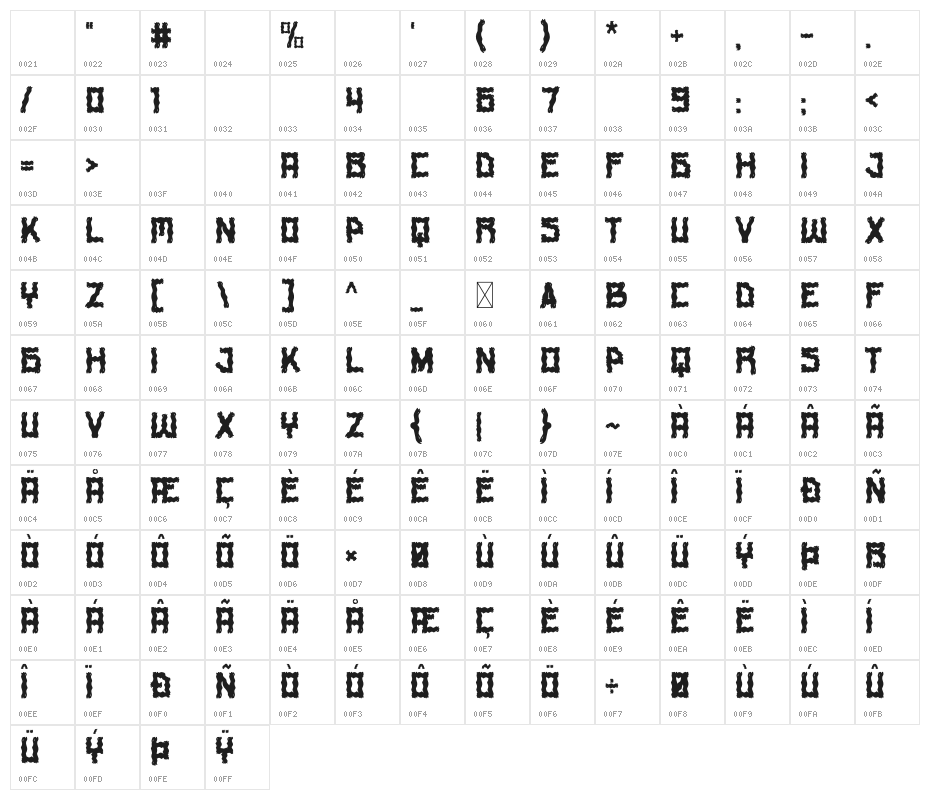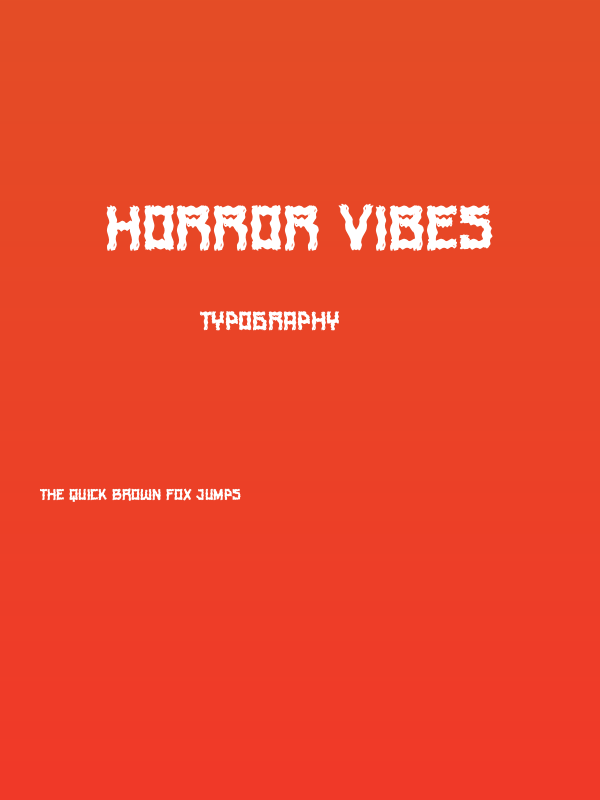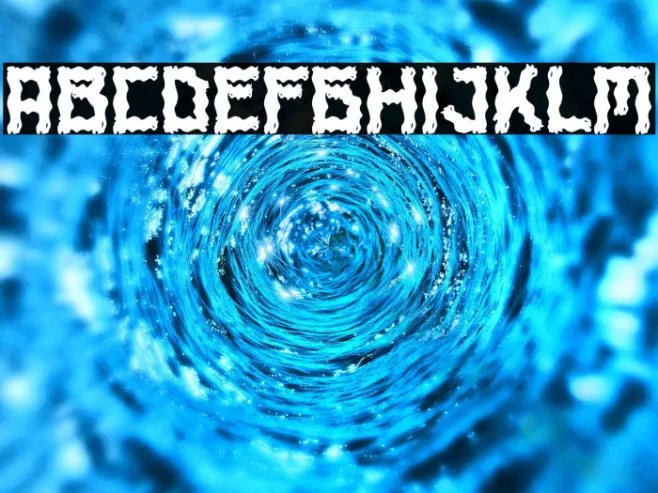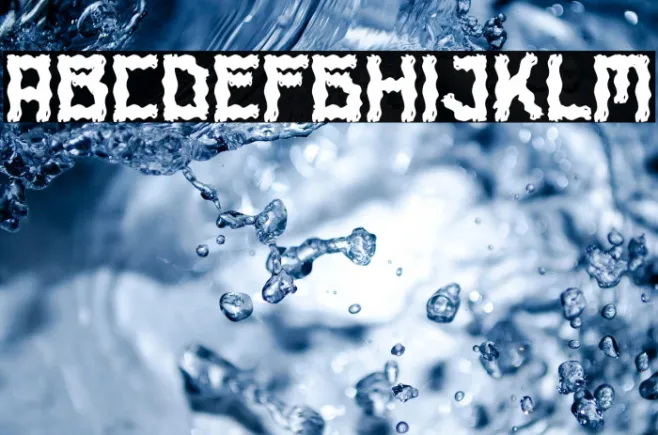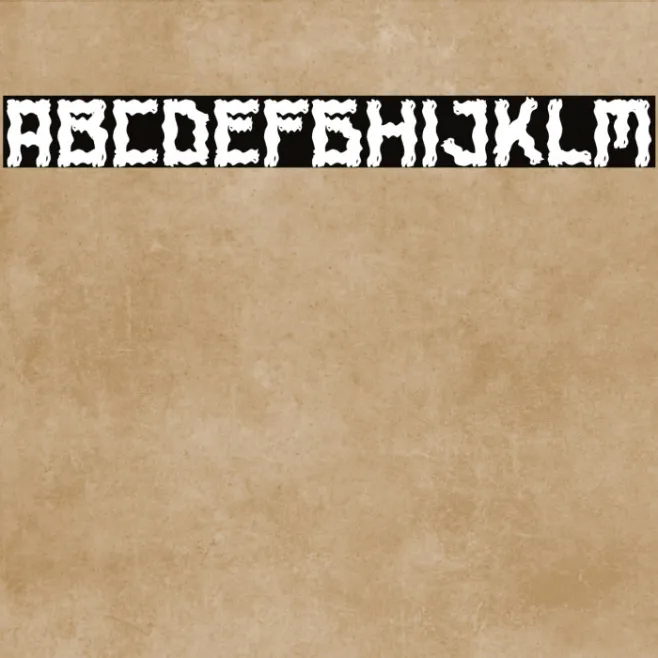
Horror Vibes Font
Horror Vibes Description
This font exudes a chilling and eerie vibe, perfect for horror-themed projects. The characters are designed with a dripping, irregular texture that resembles melting wax or oozing slime, enhancing its spooky appearance. Each letter and number is crafted to appear as if it's part of a haunted or supernatural setting, making it ideal for Halloween designs or horror movie posters. The font maintains a consistent thickness throughout, with jagged edges and a slightly distorted form that adds to its unsettling aesthetic. The special characters follow the same eerie style, ensuring a cohesive look across all text elements.